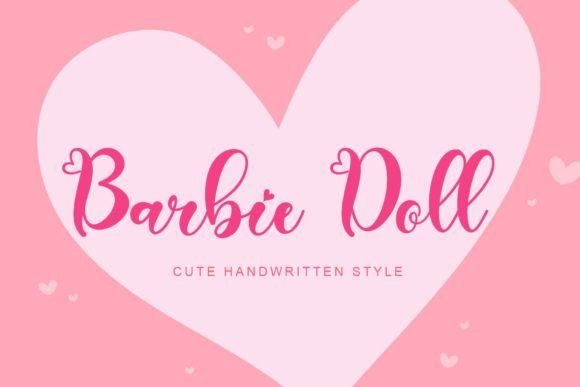
Step into a world of elegance and charm with the Barbie Doll Font, a captivating script font that exudes a timeless beauty. With its delicate curves and playful strokes, this font will add a touch of whimsy and sophistication to your creative projects.
Immerse yourself in the world of the iconic fashion doll, Barbie, as you explore the endless possibilities of this versatile font. Whether you're creating eye-catching social media graphics, designing enchanting wedding invitations, or crafting personalized logos for your business, the Barbie Doll Font will elevate your designs to new heights.
Indulge in the charm of handwritten letters as you discover the intricate details and playful ligatures that make this font truly unique. Each character dances across the page, telling a story of elegance and grace.
With the Barbie Doll Font, you'll effortlessly capture the attention of your audience. Its captivating strokes and charming personality will leave a lasting impression, ensuring that your designs stand out from the crowd.